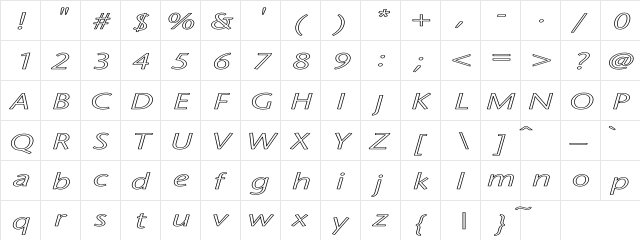
SapirSansItalic HE Regular
Design Context for SapirSansItalic HE Typeface
SapirSansItalic HE offers clean, dependable letterforms without strong stylistic allegiance, making it a practical choice for designers who need flexibility. Its italic angle brings a sense of urgency and motion to the letterforms.
Pro Tip: Try SapirSansItalic HE for annotation and caption copy alongside an upright companion — the contrast in angle creates a dynamic but ordered typographic system.